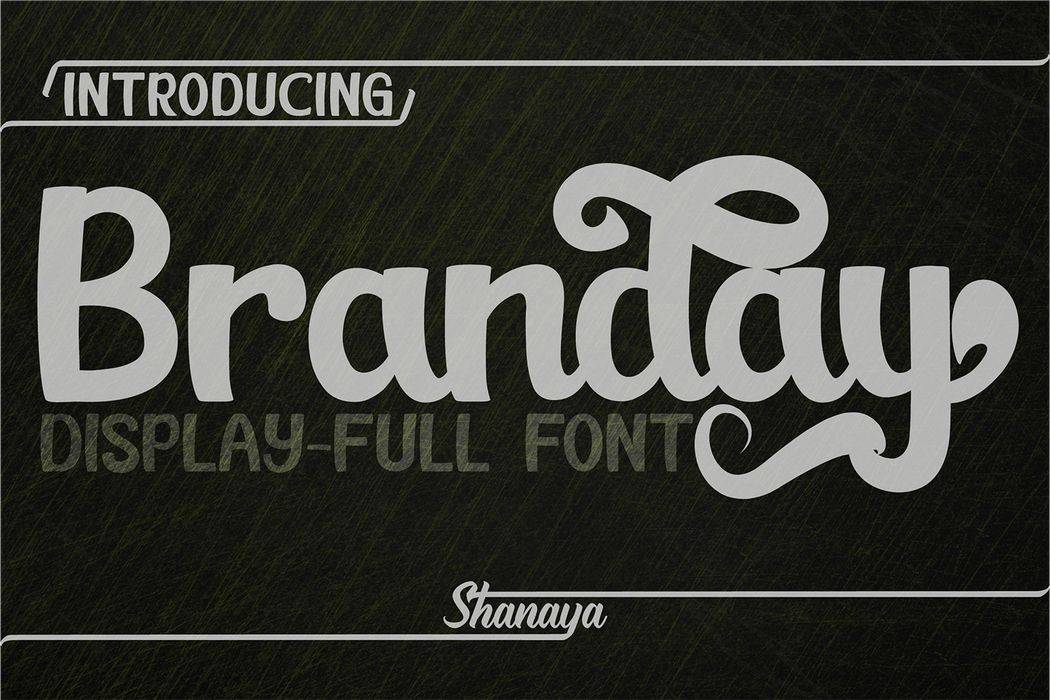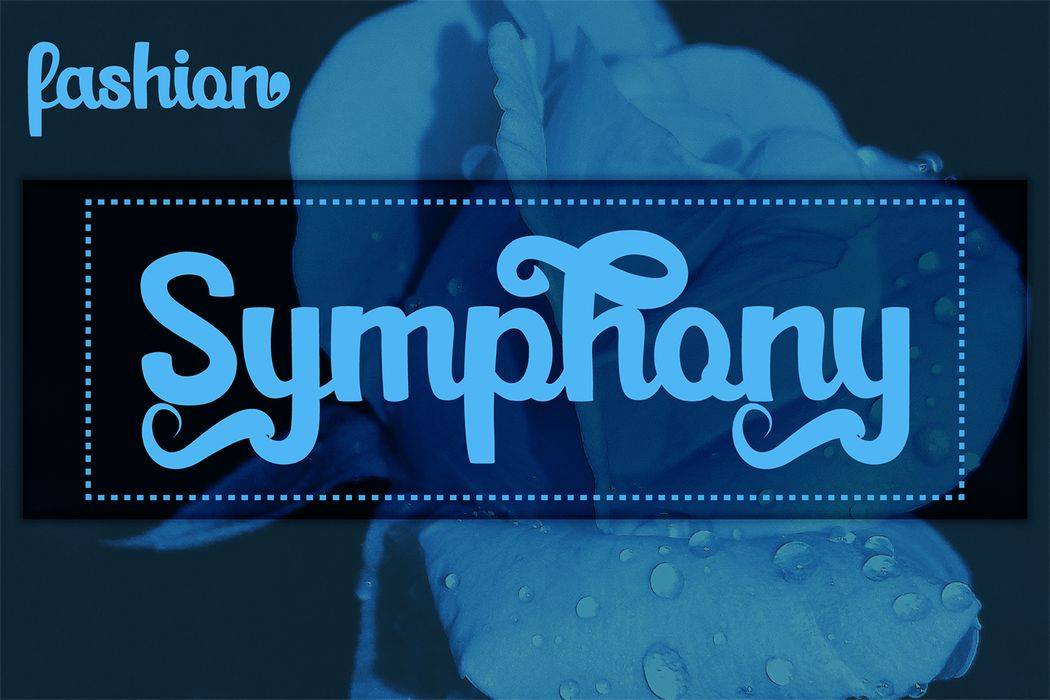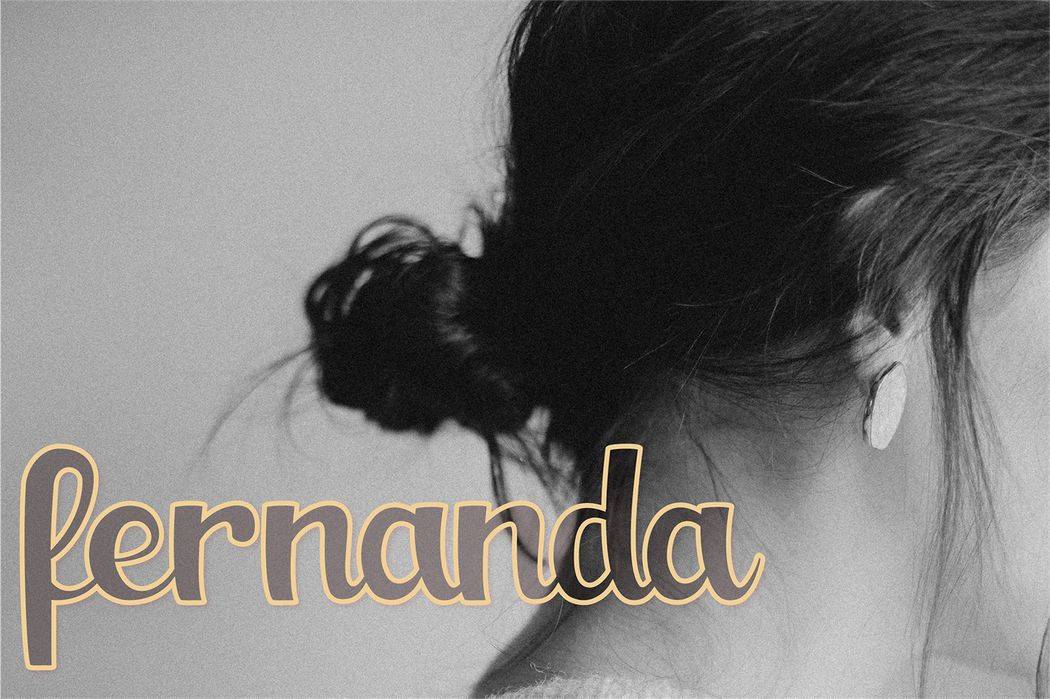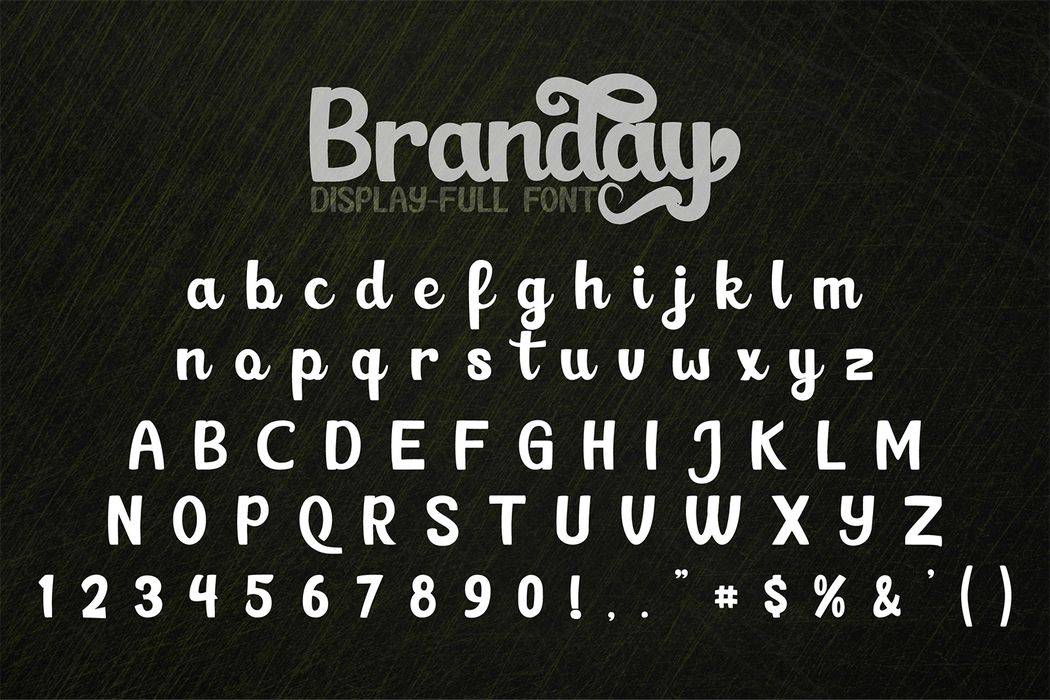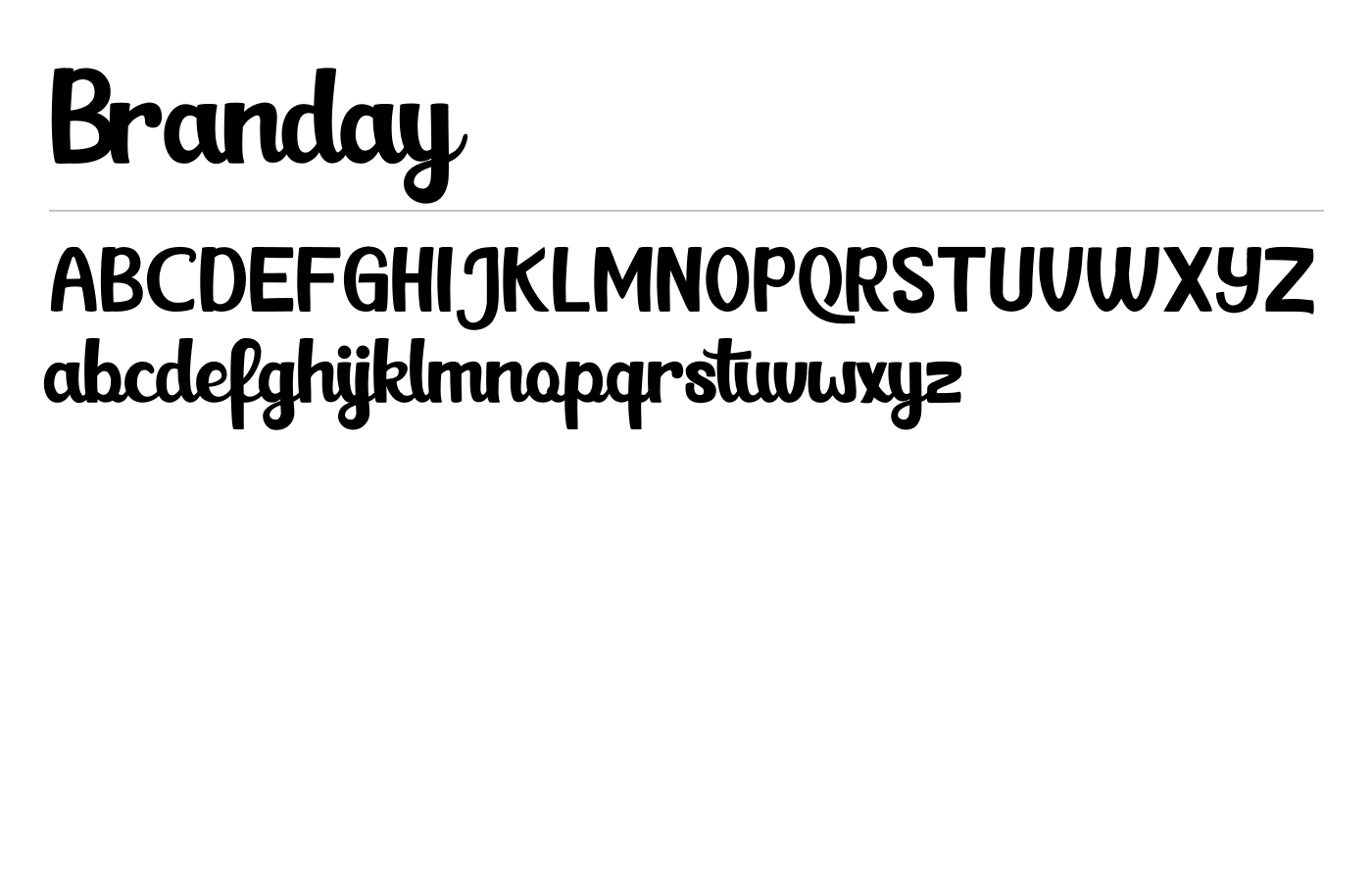
Branday is a playful and friendly sans serif font with a hand-lettered feel, featuring bold, moderately wide characters and smooth, rounded strokes. Its casual style and unique letterforms, like the distinctive tail on the Q and the fun curls on lowercase letters, make it perfect for brands and projects seeking a warm, approachable vibe. This font works especially well for logos, packaging, and headlines where a charming, informal touch is desired.
Branday Font
About Branday Font